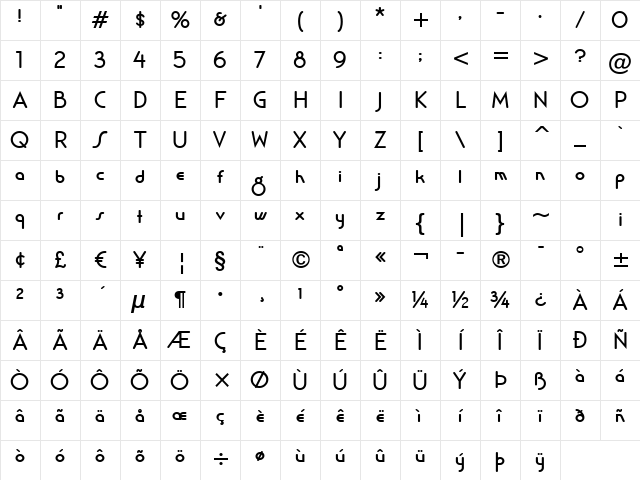
Complete Salsa Mangos BTN Bold glyph index. Displaying only characters natively supported by Salsa Mangos BTN Bold font.
Salsa Mangos BTN is a composed and adaptable typeface that performs quietly and consistently across a wide range of design contexts. Its bold stroke weight gives it real presence on the page.
Pro Tip: Use Salsa Mangos BTN in both headline and body roles to test its range before committing to a single application.